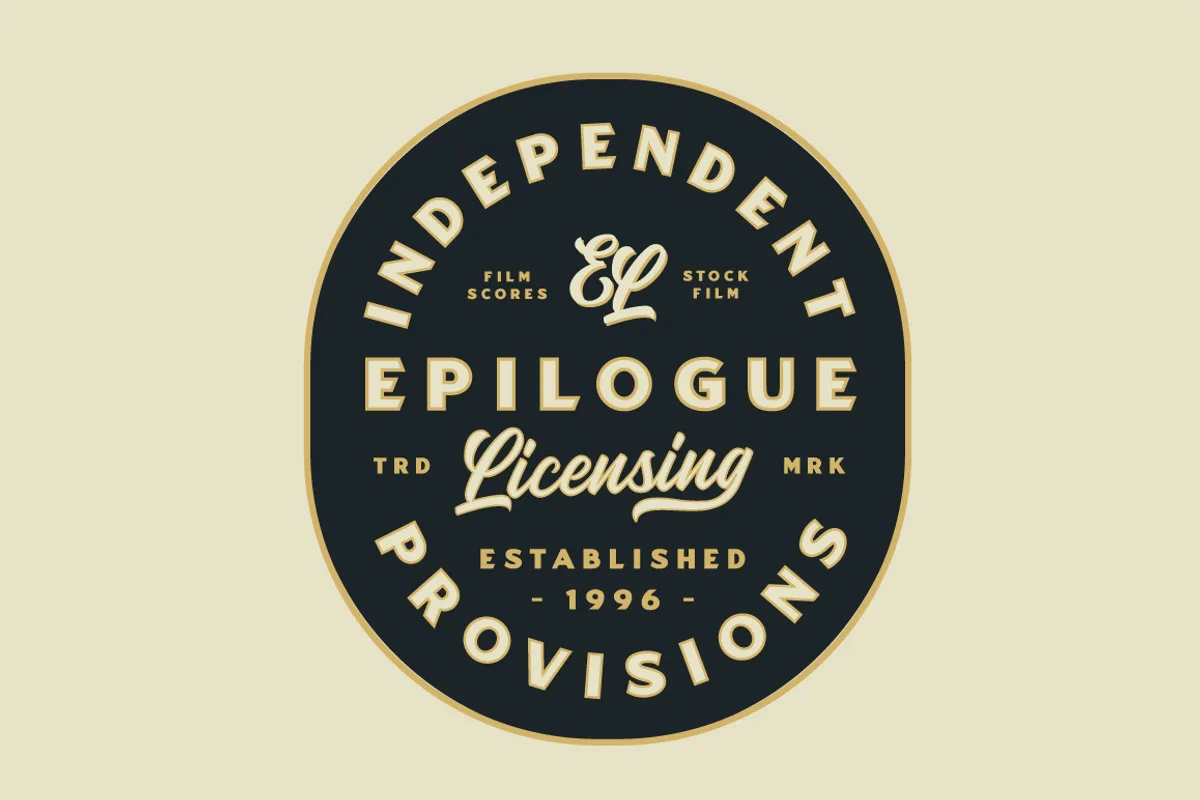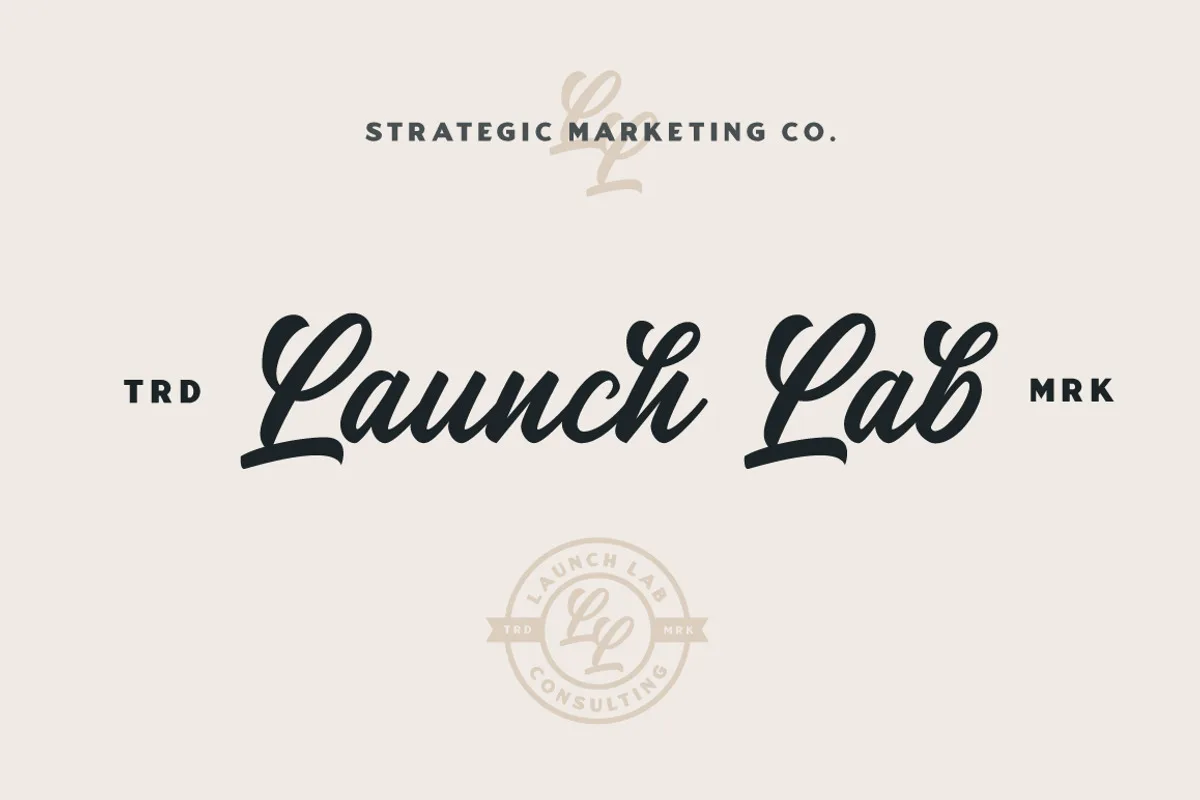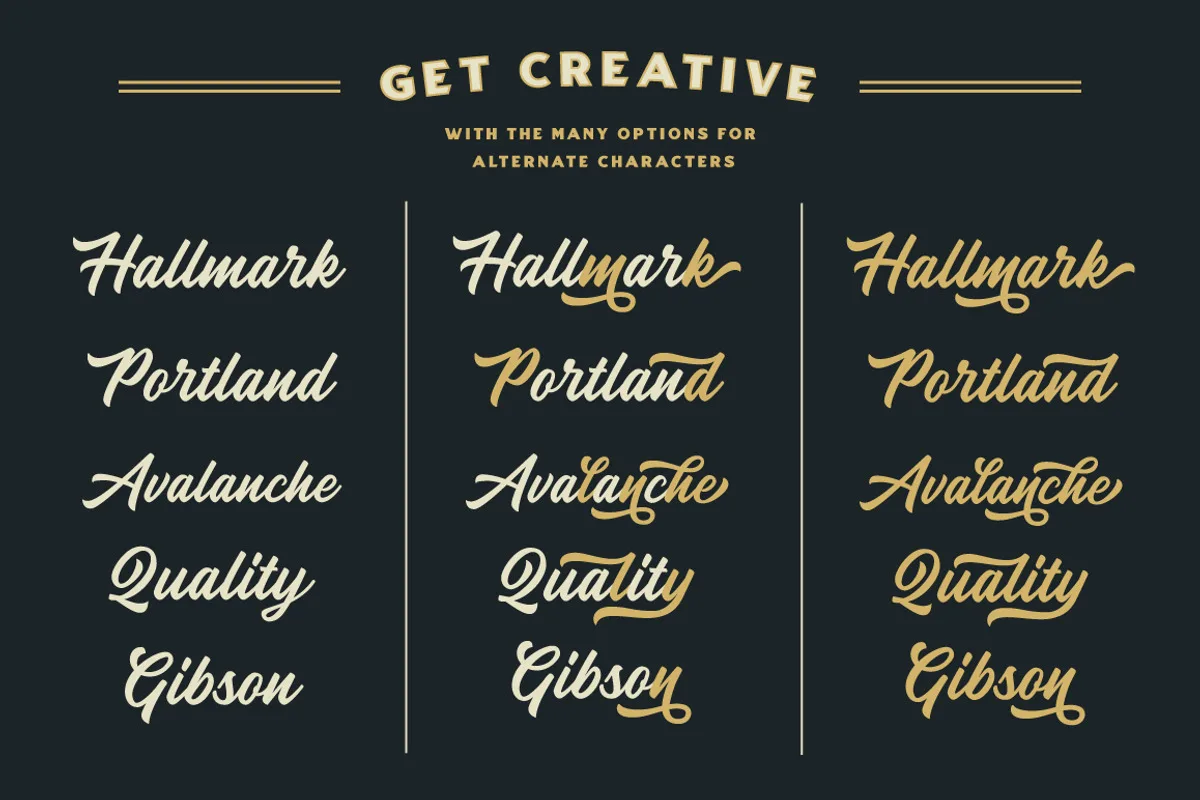
Heather Oliver Font
Introducing, Heather Oliver A Modern Script Typeface. This versatile script typeface includes many different alternates for each lowercase letter. Making this typeface a swiss army knife in your Font Library. It’s extremely fun to use as each word can be transformed to your liking.
This typeface works really well for Logos and Apparel Design. It’s also great for creating Prints or Merchandise, as you can use the illustrative qualities of the shapes to create an art piece.
Heather Oliver Script Font